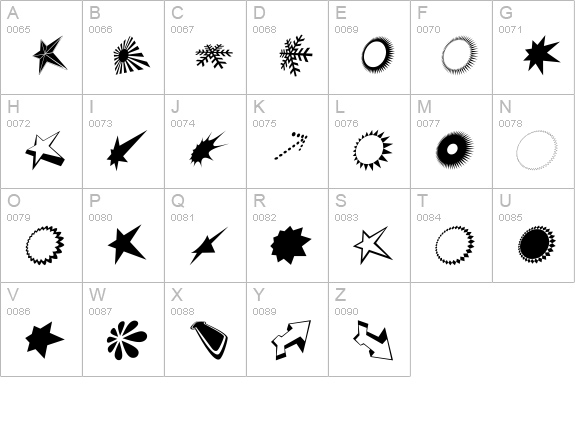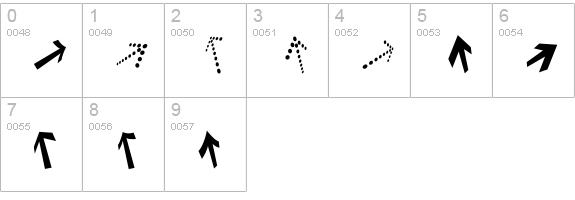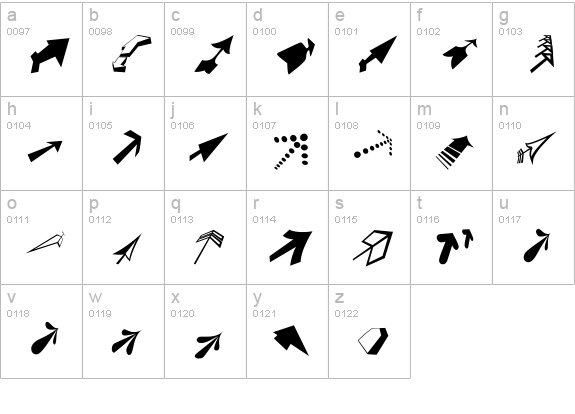
DingsbumsBats Font Details
DingsbumsBats font is a delightful and whimsical typeface that is perfect for adding a touch of fun and creativity to your design projects. With its playful shapes and unique characters, this font is sure to stand out and make a statement. Whether you're designing a poster, invitation, or logo, DingsbumsBats font will add a charming and quirky touch to your work. The best part is that DingsbumsBats font is available for free download at FontsMarket.com. You can easily access this font and start using it in your projects right away. Don't miss out on the opportunity to add this fun and versatile font to your collection today!